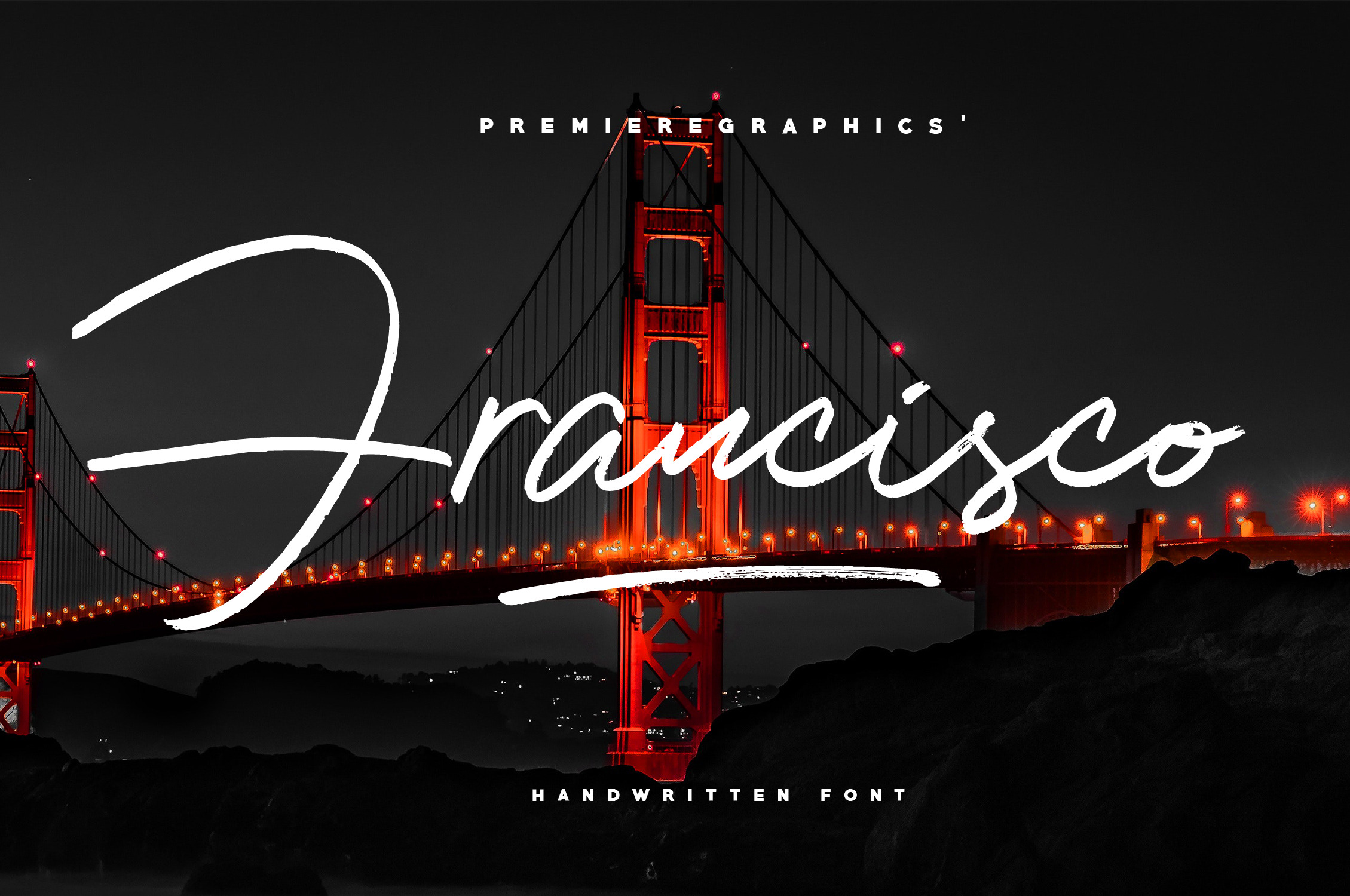
Francisco Font
I want you to meet, Francisco!
The Francisco font is what you are looking for! With its realistic pen texture, you can get the design you want! Francisco is designed to be your next favorite font. With its ligatures and multilingual support, it will be great for your logo, branding, product packaging, videos, graphic design, and many more projects!